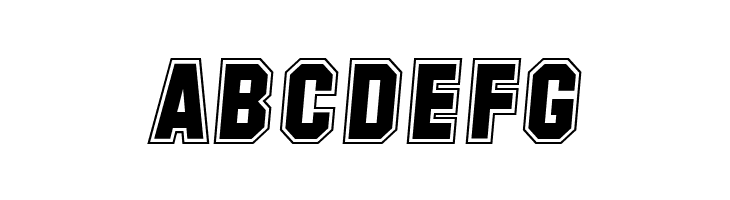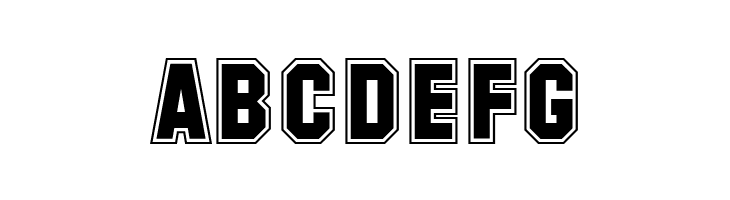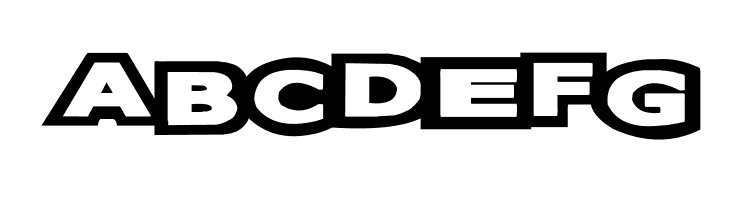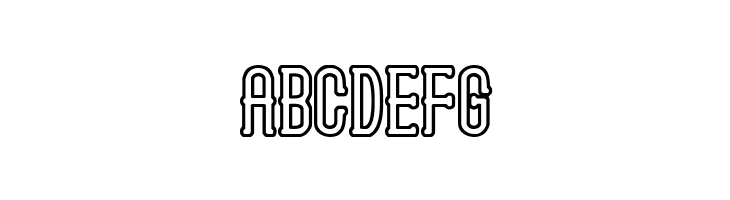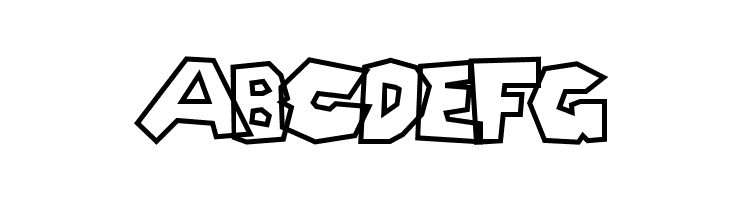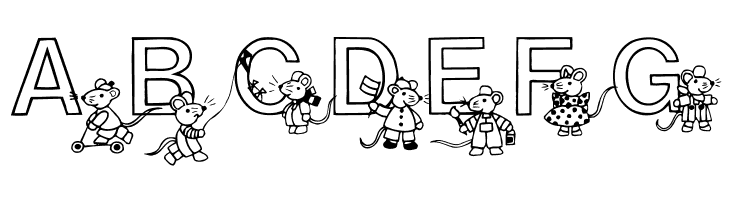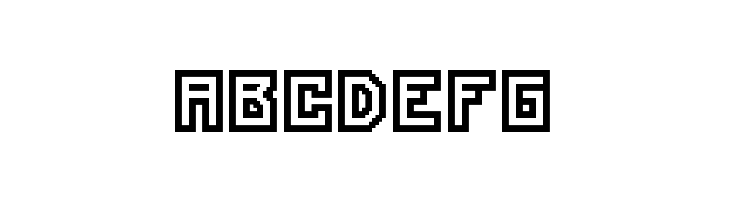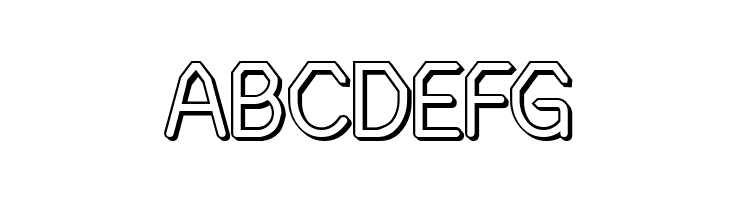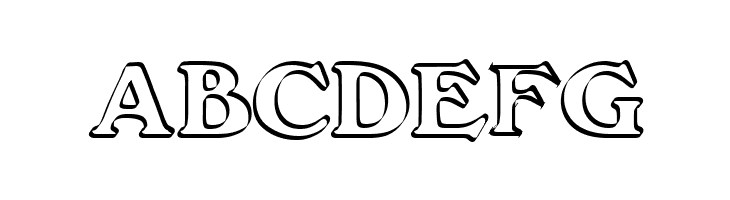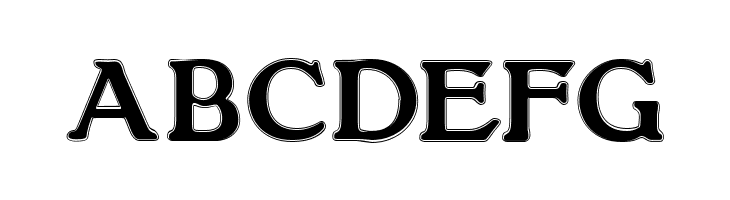
A bold, geometric font with a three-dimensional, outlined style.
A futuristic, geometric font with bold, outlined characters and a double-line effect.
A whimsical font featuring cartoon mice interacting with bold, outlined letters.
A bold, outlined font with a rugged, hand-drawn appearance.
A bold, geometric font with a blocky, outlined design ideal for tech-inspired projects.
A bold, outlined font with a geometric and modern style.
A bold, outlined decorative font with a playful, geometric style.
A modern, outlined font with geometric shapes and a playful touch.
A modern, outlined font with geometric and clean letterforms.
A bold, oblique, and futuristic outlined font with geometric precision.
A bold, outlined decorative font with a playful yet sophisticated style.
A bold, outlined serif font with a classic and striking appearance.
A bold, outlined, italicized font with a futuristic and dynamic style.
A bold, outlined, and slightly italicized font with a modern, dynamic style.
A bold, rounded font with a playful, modern aesthetic and outlined characters.
A playful, outlined font with a hand-drawn, whimsical style.
A playful, hollow, outlined font with a cartoon-like, comic book style.
A bold, geometric outlined font with a modern and edgy style.
A bold, outlined blackletter-inspired font with ornate details.
A bold, outlined serif font with a three-dimensional effect.
A bold, geometric, and playful outlined font.
A playful, bubble-like font with outlined characters and a whimsical style.
A bold, outlined font with a fantasy-inspired, geometric style.
A bold, outlined font with a playful, three-dimensional style.
Bold, italicized font with a collegiate, outlined style.
Bold, outlined collegiate font with a strong, traditional style.